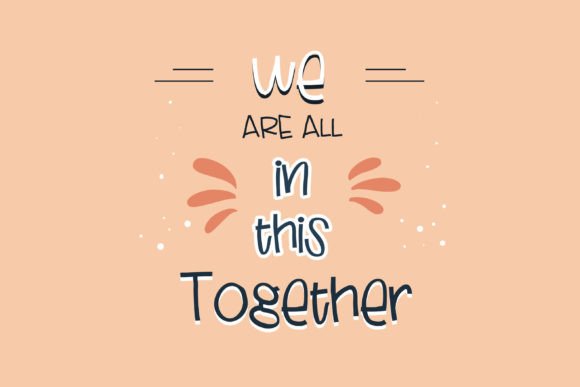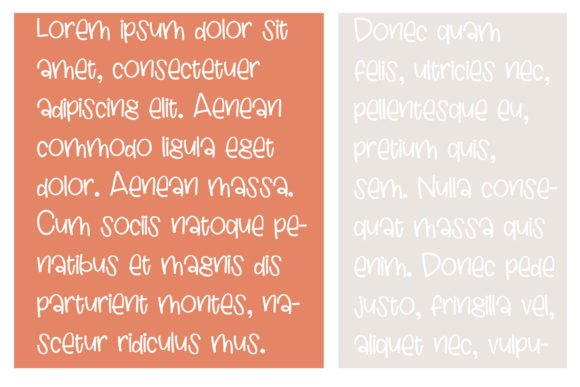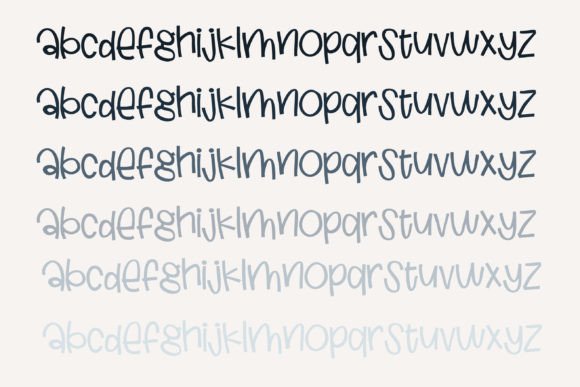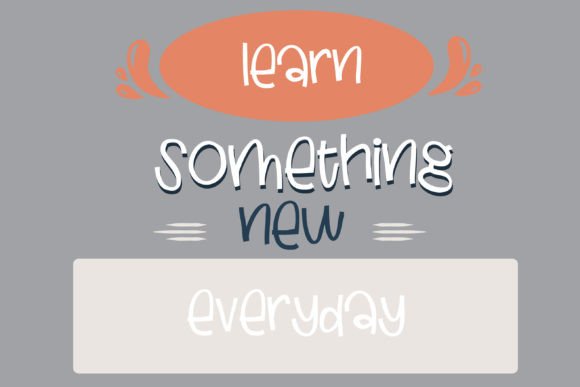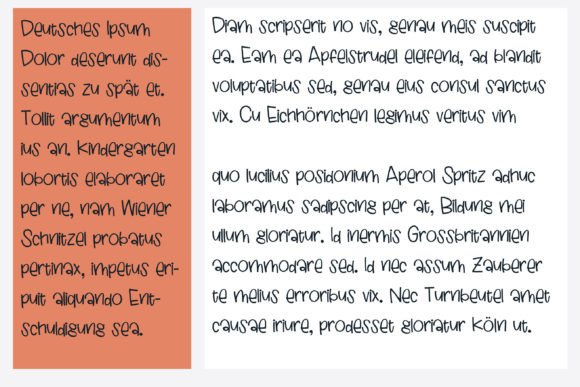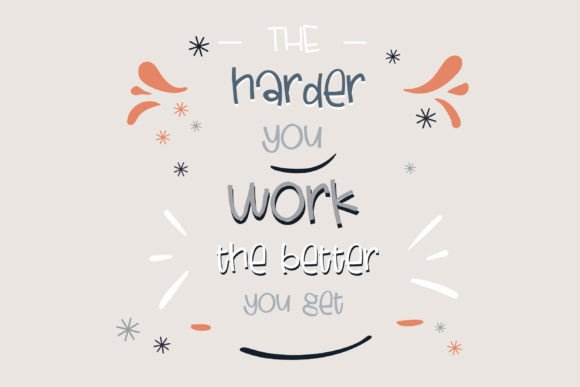
Homemade Rolls Font
About Homemade Rolls Font
Homemade Rolls Font Download introduces a fun and approachable handwritten typeface designed to bring warmth and creativity to your projects. With its playful curves and friendly vibe, this font captures the feeling of casual handwriting while maintaining clarity and polish. Whether you’re creating digital designs, print layouts, or crafting personalized goods, Homemade Rolls is a versatile choice that adapts beautifully to different creative needs.
This font radiates charm and simplicity, making it suitable for designers who want a natural handwritten look without compromising on readability. Its style feels relaxed yet professional, allowing it to enhance projects ranging from personal crafts to brand identities.
Fun and Friendly Design
The charm of Homemade Rolls lies in its fun-loving strokes and welcoming appearance. Each letter feels organic, as though written with care, making your designs instantly more relatable. Its casual rhythm pairs perfectly with modern and creative layouts, ensuring your typography stands out in a unique yet accessible way.
You can use it in a wide variety of design projects, including:
• Greeting cards and wedding invitations
• Branding for handmade shops and small businesses
• Social media graphics and digital posts
• Product packaging, labels, and gift tags
• Journals, planners, and creative stationery
• Logos, quotes, and wall art
By blending simplicity with personality, Homemade Rolls delivers the perfect balance of playful charm and clear readability.
Its smooth kerning ensures that text flows naturally, while consistent spacing keeps words neat and cohesive. Even in longer passages, the font maintains readability without losing its handcrafted charm.
Perfect for Digital and Print Designs
Homemade Rolls is highly adaptable, making it suitable for both digital and print applications. On-screen, it brings a lighthearted and engaging touch to blog headers, website banners, and social media content. In print, it excels on invitations, flyers, menus, and product packaging.
To enhance its versatility, try pairing Homemade Rolls with a bold serif or sans-serif font. The combination creates a strong contrast that makes headlines, logos, or key messages stand out even more.
From branding and marketing to crafts and personal projects, Homemade Rolls offers a balance of playfulness and practicality that makes it truly unique.